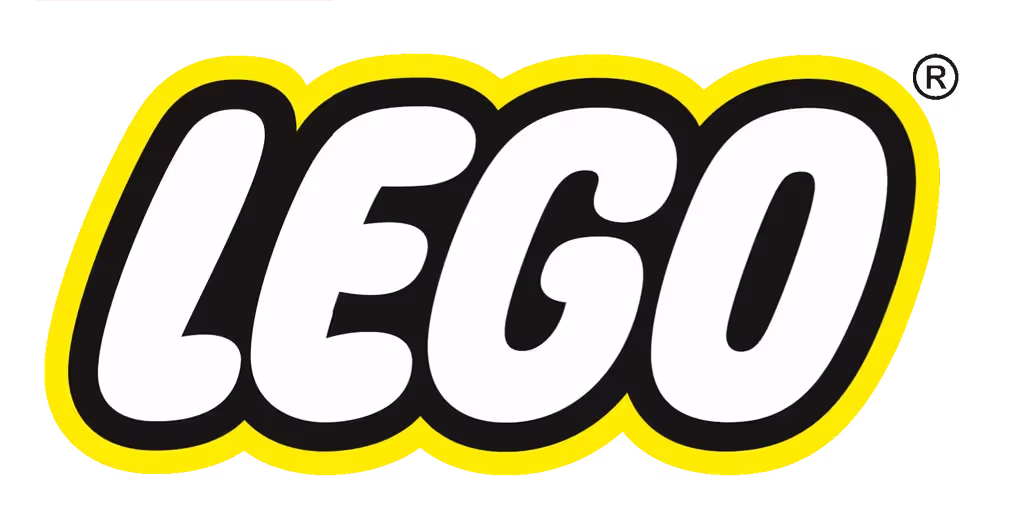
Lego Font
The LEGO logo font is Lego Thick. Lego A/S is a Danish toy company based in Billund, best known for its interlocking plastic brick toys. The company also operates Legoland theme parks and retail stores worldwide. The LEGO logo font, Lego Thick, is a bold, rounded display typeface with soft corners and heavy strokes. The playful, bubble like letterforms create a friendly and recognizable identity that reflects creativity, imagination, and fun.
Lego Thick
The font used for the Lego logo is very similar to LegoThick, which is a free fan made font based on the logo itself.